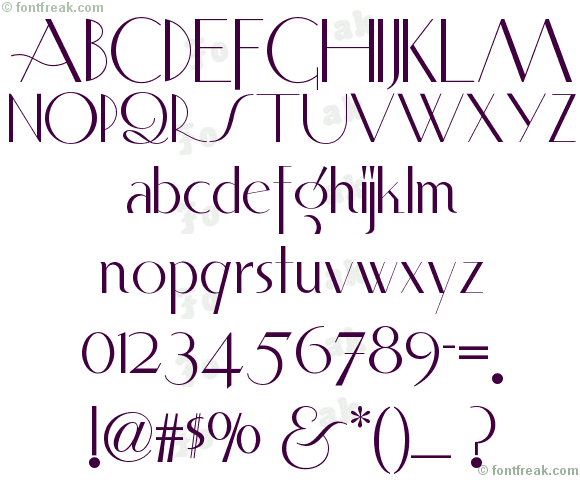
Smart Frocks NF
Smart Frocks NF, designed by Nick Curtis in 2006, is an elegant display font that effortlessly combines a contemporary aesthetic with classic flair. This font falls into the category of decorative serif, featuring distinctive characteristics that make it truly unique. The stroke weight varies gracefully, offering a harmonious balance between boldness and delicacy. The high contrast between thick and thin strokes creates an eye-catching visual appeal, while the carefully crafted curves and flourishes add a touch of sophistication.
Smart Frocks NF is best suited for a variety of creative applications. Its refined style makes it an excellent choice for wedding invitations, where elegance is paramount. Additionally, it shines on movie posters, lending a dramatic flair that captures attention. Restaurant menus can also benefit from this font, as its stylish appearance can elevate the dining experience, making dishes seem even more appealing. Graphic designers looking to create captivating branding materials will find this font particularly effective in logos and promotional materials, while content creators can use it to enhance their blogs and social media graphics.
What sets Smart Frocks NF apart is its ability to blend modern design with timeless elegance, making it versatile enough for a wide range of projects. Its unique visual characteristics and thoughtful design ensure that any project using this font will evoke a sense of style and sophistication. For those interested, the Smart Frocks NF font free download makes it easily accessible for all your design needs.